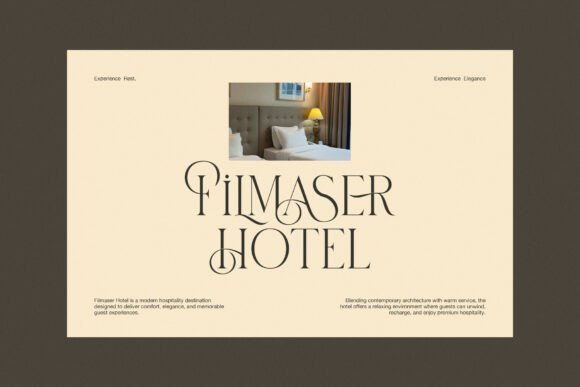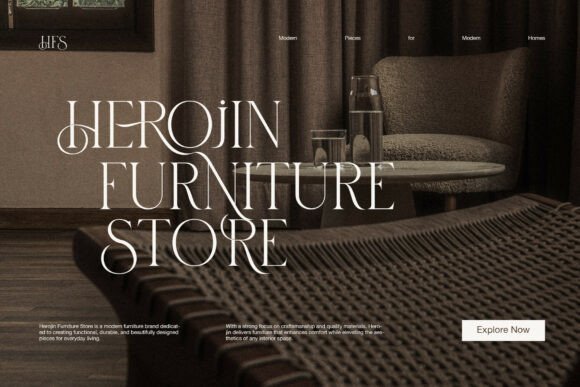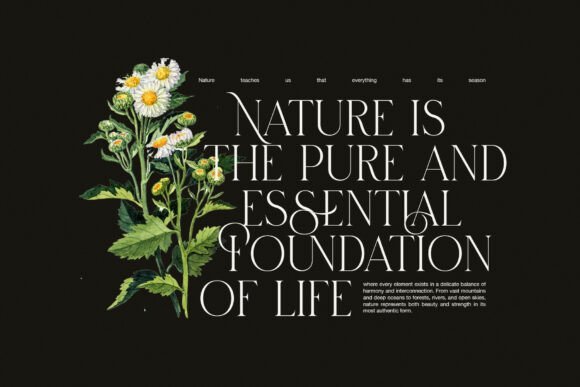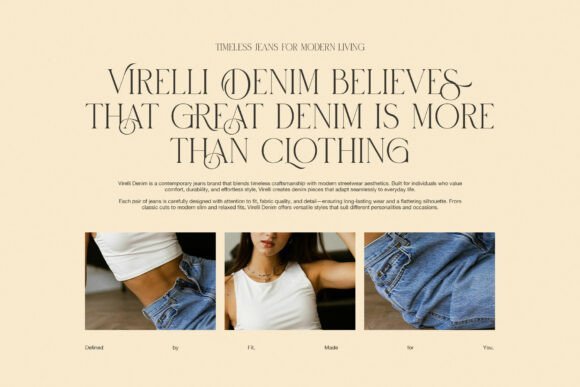
Biges Font
The font has clean serif details with graceful swashes that flow across selected letters. Because of this, Biges can turn simple words into stylish display typography. It feels soft, yet it still has a strong visual voice.